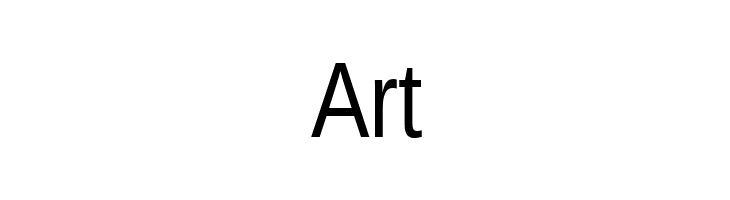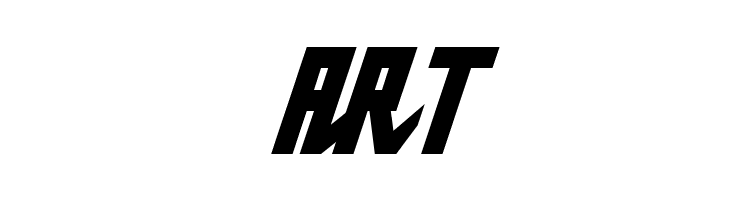
A bold, narrow font with a strong, modern presence.
A modern, narrow font with a clean and geometric design.
A decorative font with arrow motifs integrated into each character, offering a whimsical and playful style.
A bold, retro-inspired font with a narrow, blocky design and rounded edges.
A digital, geometric font with a blocky, futuristic style.
A bold, condensed slab serif font with a modern and structured design.
A playful, whimsical serif font with bold, rounded serifs and hand-drawn appeal.
A bold, dynamic font with sharp, angular strokes and an energetic appearance.
A dynamic handwritten font with elongated, expressive characters.
A dotted line instructional font for handwriting practice with stroke guides.
Cursive educational font with dotted lines and directional guides.
A geometric, blueprint-style font with a modern and technical look.
A dotted cursive font designed for handwriting practice and education.
A dotted guide font for handwriting practice with directional cues.
An educational font with dotted lines and directional guides for learning letter formation.
A geometric, angular font with a modern, industrial style.
A bold, modern font with elongated, narrow characters and a geometric structure.
A modern, semi-bold, italic font with a slightly condensed style.
A bold, geometric font with a three-dimensional effect and sharp angles.
A bold, shadowed font with angular edges and a three-dimensional effect.
A bold, decorative font with vintage flair and ornate serifs.
A geometric, angular font with a modern and technical aesthetic.
A bold, geometric font with a modern and industrial style.
A playful, handwritten font with thin, consistent strokes and whimsical letterforms.
A bold, futuristic font with sharp angles and a dynamic slant.
A bold, futuristic font with geometric shapes and sharp angles, ideal for tech-inspired designs.
A bold, geometric font with sharp angles and a futuristic look.
A geometric, angular font with a futuristic and modern design.
A segmented, digital-style font inspired by LED displays.